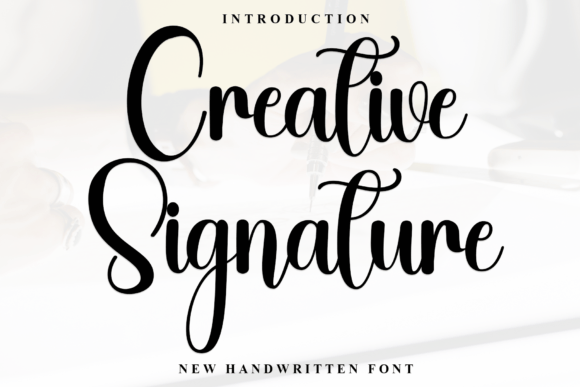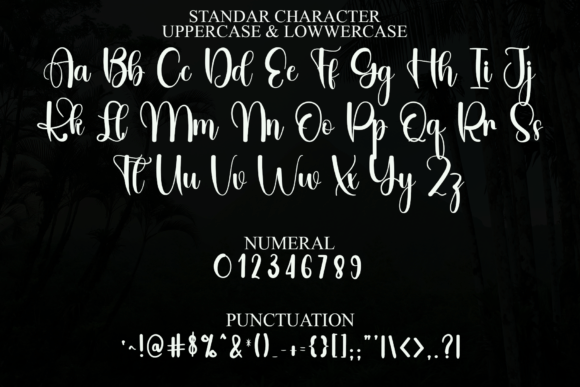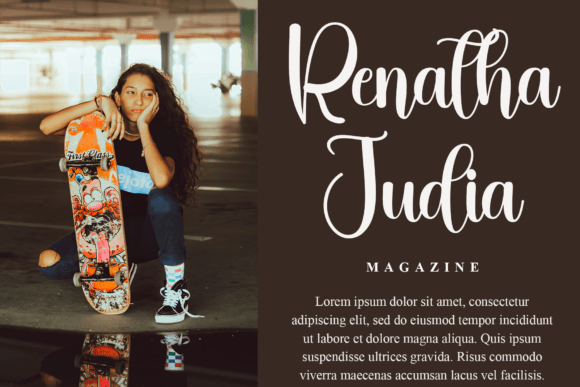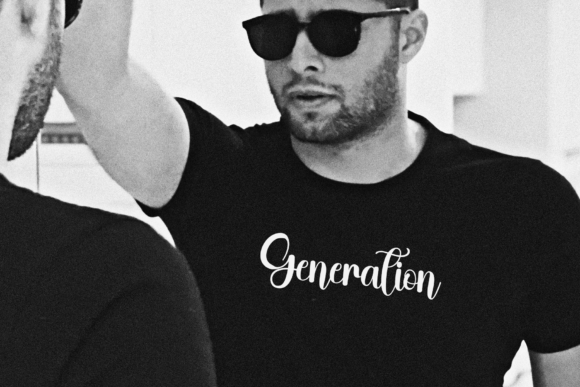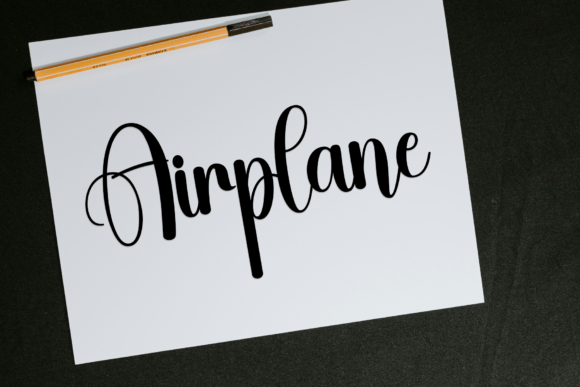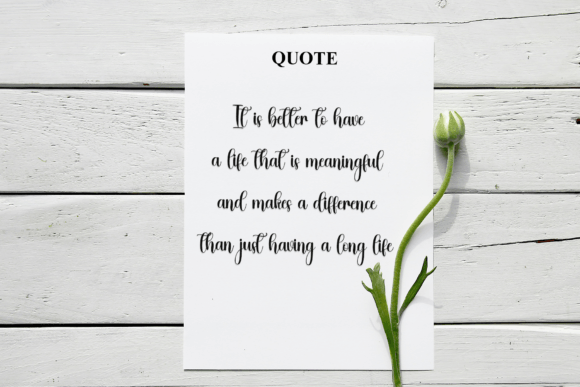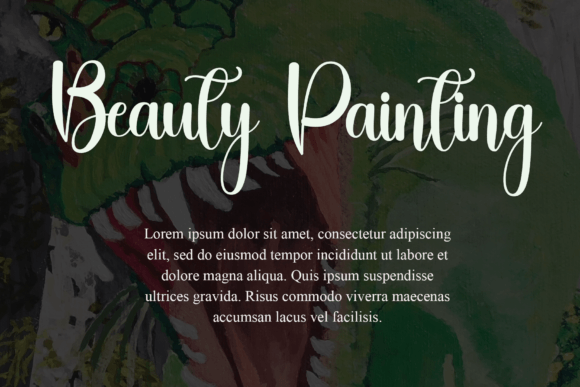
Unlock the Magic of Handwritten Elegance
Have you ever sat down with a pen and paper, trying to capture the essence of a special moment? Maybe it was a wedding proposal, a milestone birthday, or a heartfelt thank you note. Whatever the occasion, the act of putting pen to paper can be incredibly therapeutic and inspiring. For designers, this creative moment can be a catalyst for something truly special – a unique and personalized signature that sets them apart.
That’s where the Creative Signature Font comes in – a beautiful and refined handwritten font that exudes elegance and sophistication. With its modern look and PUA encoding, this font is perfect for designers who want to add a touch of whimsy and personality to their projects. Whether it’s a logo, branding, or social media post, the Creative Signature Font is sure to make a lasting impression.
Creative Signature Font Key Features
- Unique Characteristics: The Creative Signature Font features a unique blend of elegant and modern design elements, including intricate flourishes and subtle texture, making it perfect for creating eye-catching signatures and logos.
Designer Review: Creative Signature Font
Overall, I think the Creative Signature Font is a great addition to any designer’s toolkit. ✨ Its unique blend of elegant and playful characteristics makes it perfect for creating attention-grabbing headings and titles. The font’s curves and flourishes add a touch of sophistication, while its bold lines give it a modern feel.
One of the things I appreciate most about this font is its versatility. ✨ It can be used for a wide range of projects, from wedding invitations to business cards. The font is also highly customizable, allowing designers to adjust the weight, size, and spacing to suit their specific needs.
- Unique blend of elegant and playful characteristics
- Versatile for a wide range of projects
- Perfect for creating attention-grabbing headings and titles
- May not be suitable for body text, due to its bold and playful nature
- Can be overwhelming if used too much, so use sparingly
- Not ideal for projects that require a more conservative or traditional look
Overall, I’m impressed with the Creative Signature Font and would highly recommend it to designers looking for a unique and eye-catching font. With a little creativity and restraint, this font can really make your designs stand out.
Use the Creative Signature Font to add a personal touch to your designs.
Combine the font with other design elements to create a cohesive brand identity.
Use the Creative Signature Font for:
Business cards and letterheads
Signature blocks and quotes
Marketing materials and social media graphics
Can I customize the Creative Signature Font?
Yes, the Creative Signature Font is a highly customizable font. It includes a range of OpenType features, such as ligatures, swashes, and alternates, that can be accessed using font software like Adobe Illustrator or Photoshop. Additionally, you can also use font editing software to customize the font to your specific needs.